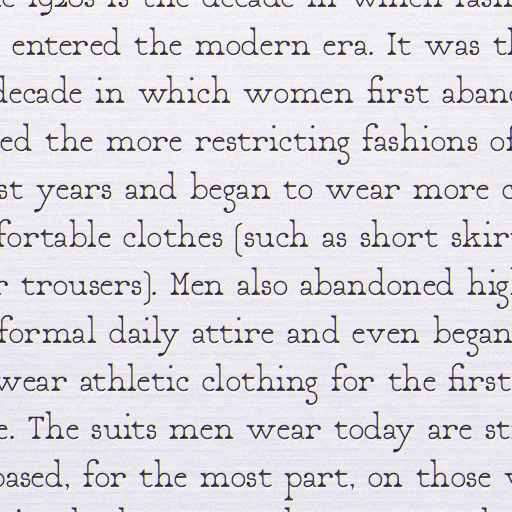
What a nice one.
NICE!
This is such a well executed and wonderfully designed font!
Smooth, clean and wonderful. Great work.
Beautiful work.
everything about this font is absolutely lovely
wow, very beautiful 10/10
Nice curls on E and L echoed in the extra weight in the lower parts of the old style numbers.
Congratulations! FontStruct Staff have deemed your FontStruction worthy of special mention. “Shooting Star” is now a Top Pick.
Congratulations on the TP! Finally I was not wrong.
pretty cool! i think i saw another font that looks like this (it's not Asteroid BM), but i can't seem to find it anymore. i remember it was not available for download.